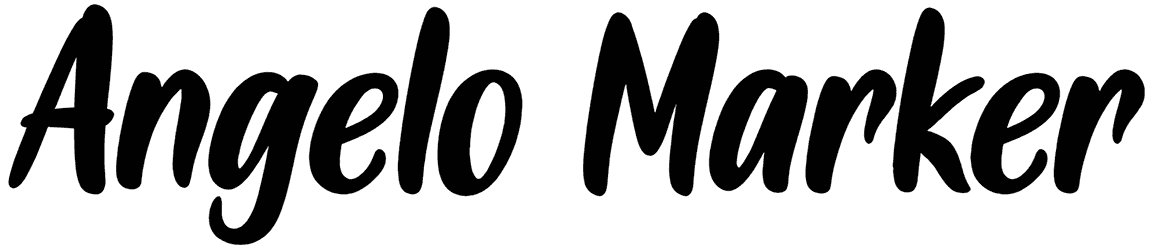
Angelo Marker Font
Angelo Marker has the potential to design posters, flyers, invitations, and everywhere you require hand-drawn effects, bringing you back to the bright side of life and setting you apart from the crowd.